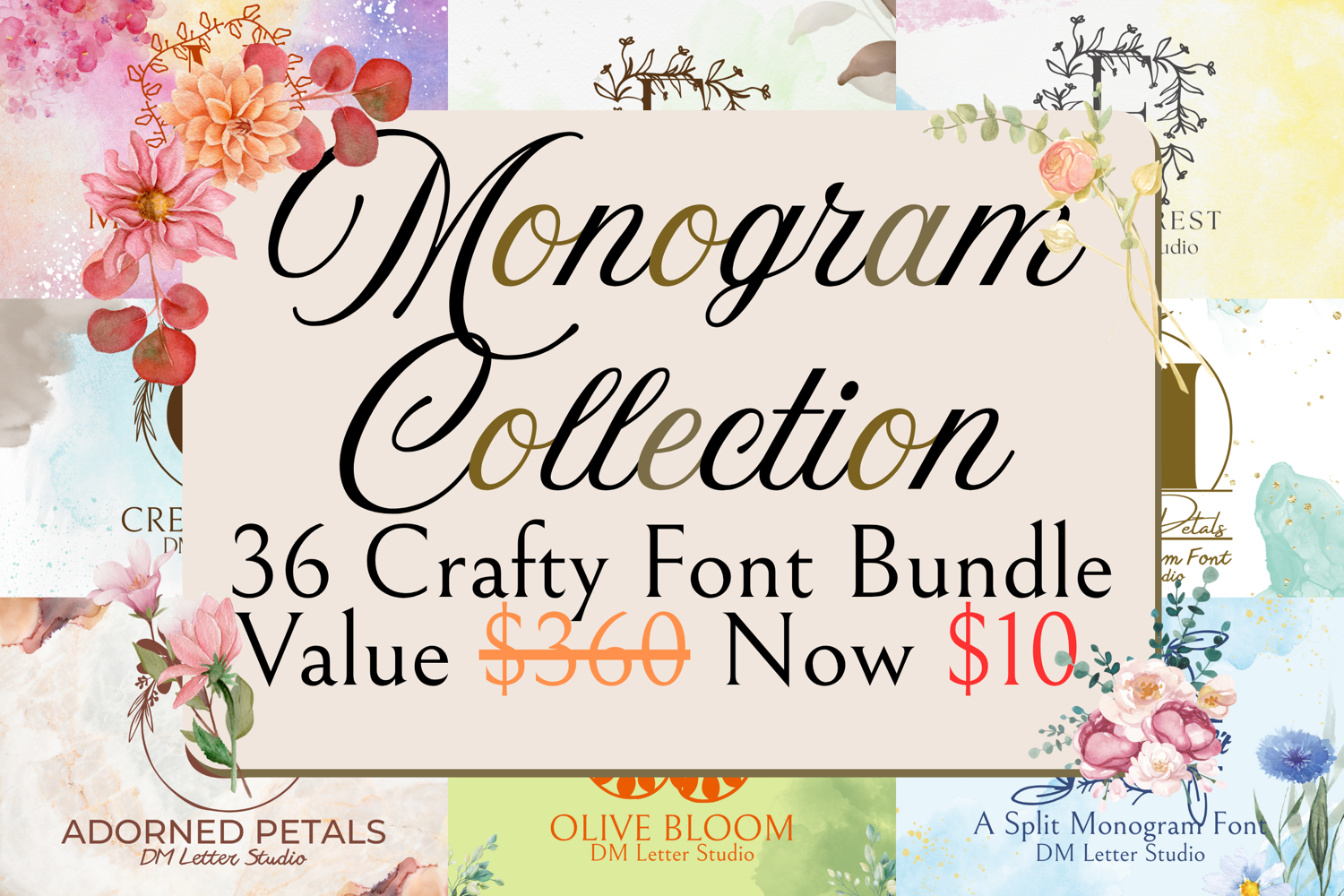
Add timeless elegance and botanical charm to your designs with the Monogram Collection by DM Letter Studio! This premium font bundle includes 36 beautifully crafted fonts across 18 unique monogram pairs (regular + split versions), inspired by nature, florals, and graceful serif forms.
✅ 36 Elegant Fonts – Includes 18 monogram fonts and 18 matching split monogram styles.
✅ Nature-Inspired Themes – From delicate florals to regal crowns, each font is infused with organic detail.
✅ Versatile Use Cases – Perfect for weddings, branding, Cricut crafts, invitations, signage, and customized gifts.
🌸 High-End Botanical Aesthetics – Featuring intricate floral and leaf accents, perfect for rustic, boho, and nature-themed designs.
💌 Customization Ready – Most fonts come in both standard and split formats, ideal for custom name signs and monogrammed products.
🌿 Seasonal Flexibility – Includes elegant fonts suited for spring weddings, autumn branding, holiday gifts, and more!
- Aventine Floral Monogram + Split
- Aureus Charm Monogram + Split
- Arabesque Bloom Monogram + Split
- Aubrielle Monogram + Split
- Adorned Petals Monogram + Split
- Botanique Monogram + Split
- Belle Luxe Monogram + Split
- Crest Petal Monogram + Split
- Eden Loop Monogram + Split
- Flora Crest Monogram + Split
- Floral Charm Monogram + Split
- Ivy Whisper Monogram + Split
- MeadowLine Monogram + Split
- Olive Bloom Monogram + Split
- Rosalyn Circle Monogram + Split
- Vine Velvet Monogram + Split
- Wild Fern Monogram + Split
- Willow Crown Monogram + Split